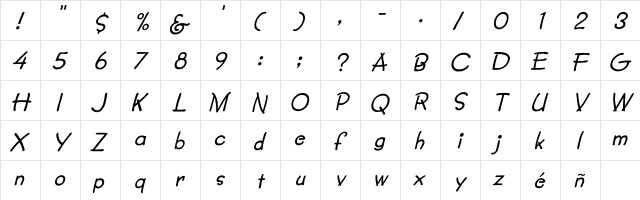
Lumparsky Italic Italic
Design Context for Lumparsky Italic Typeface
Lumparsky Italic takes a measured approach to typography — its balanced proportions and neutral character make it a reliable workhorse for both digital and print work. The slanted form adds forward momentum and visual energy.
Pro Tip: Use Lumparsky Italic for emphasis, pull quotes, and subheadings where its slanted energy can add rhythm to the layout.